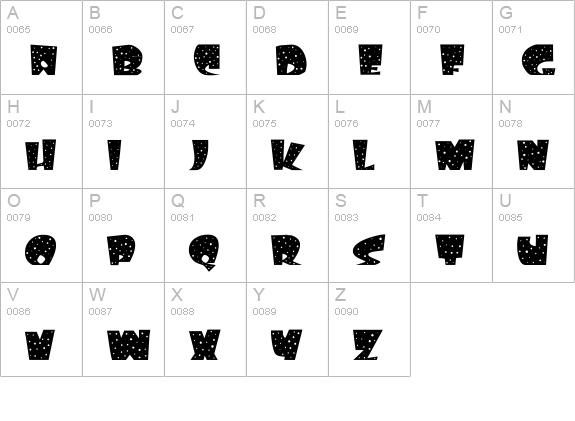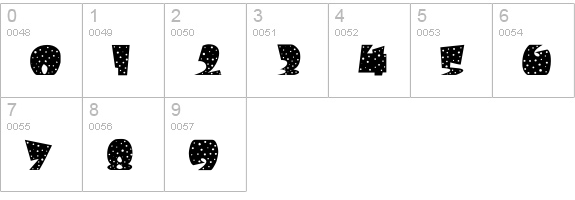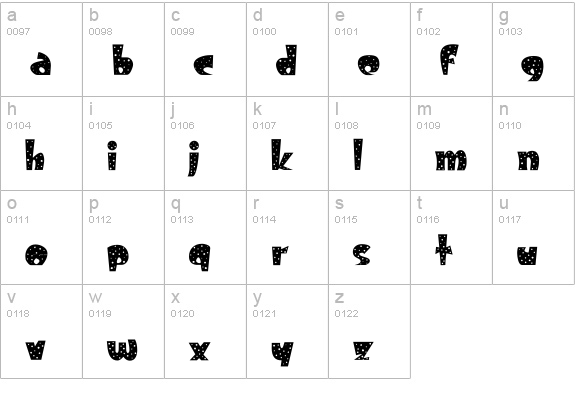
Freckle font is a charming and whimsical typeface that adds a touch of playfulness to any design project. With its unique hand-drawn look and quirky details, Freckle is sure to stand out and capture attention. Whether you're designing a poster, greeting card, or logo, this font will bring a fun and lighthearted feel to your work. The best part is that Freckle font is completely free to download at FontsMarket.com. You can easily access this delightful font and use it in your projects without any cost. Don't miss out on the opportunity to add a touch of personality to your designs with Freckle font - get your free download today!